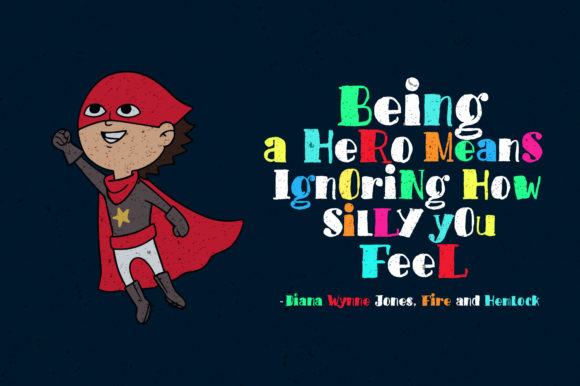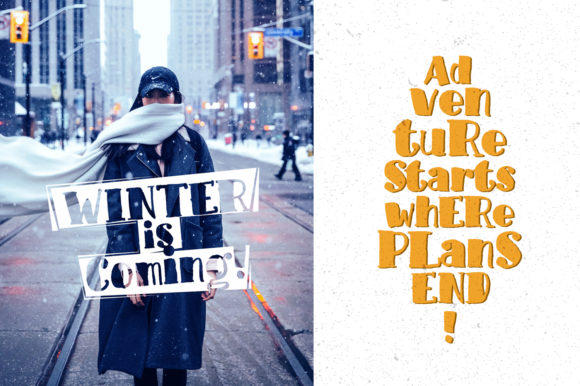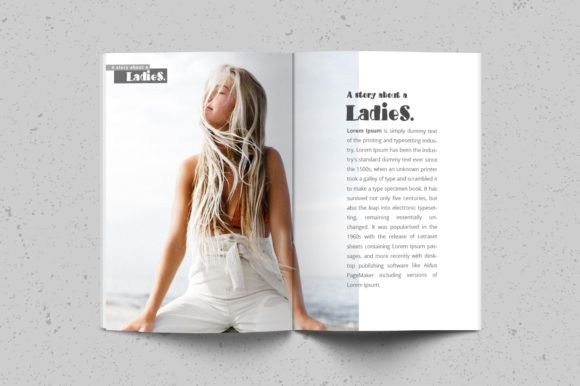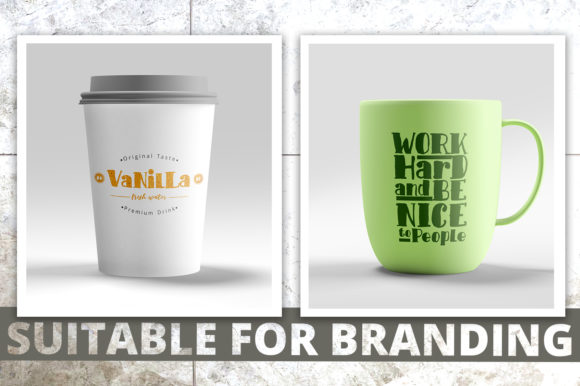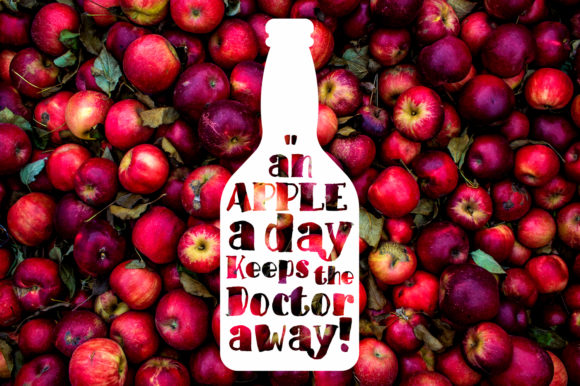
Introduction to Monkey Sausage Font
Monkey Sausage is a playful and fun display font with a cool feel.
It will add a whimsical feel to any crafting idea .